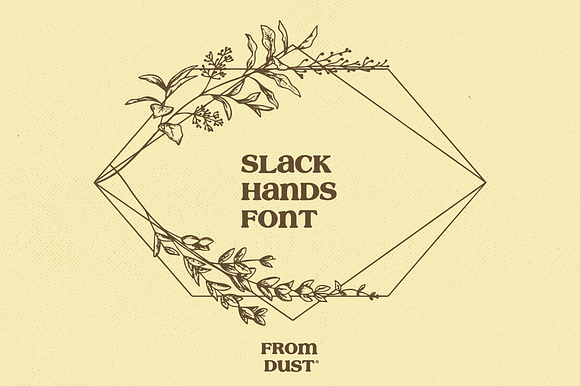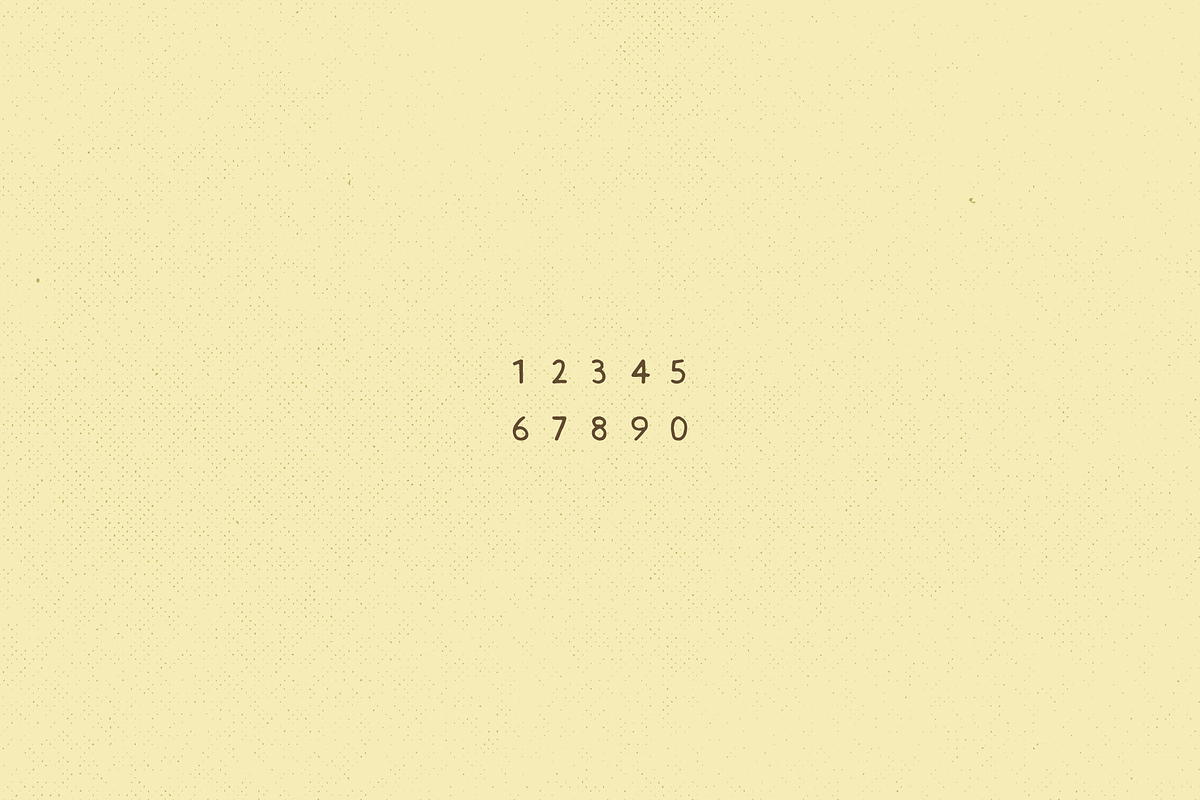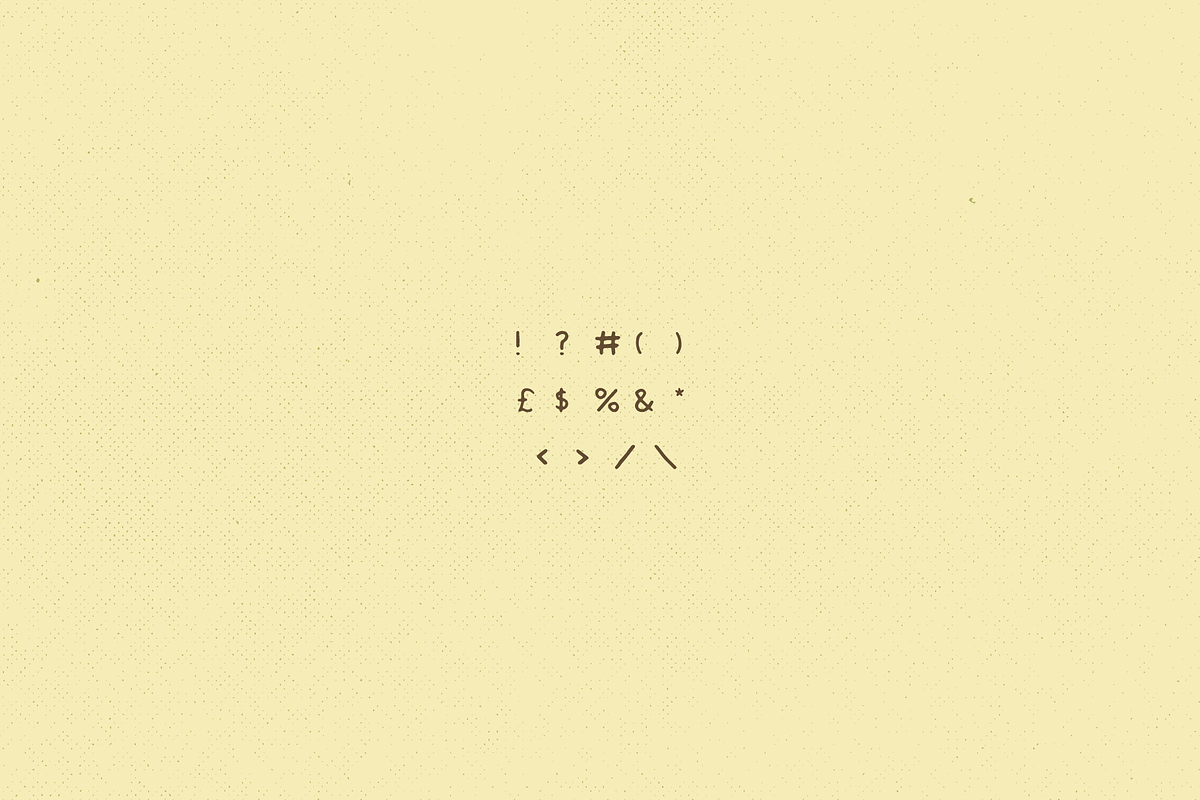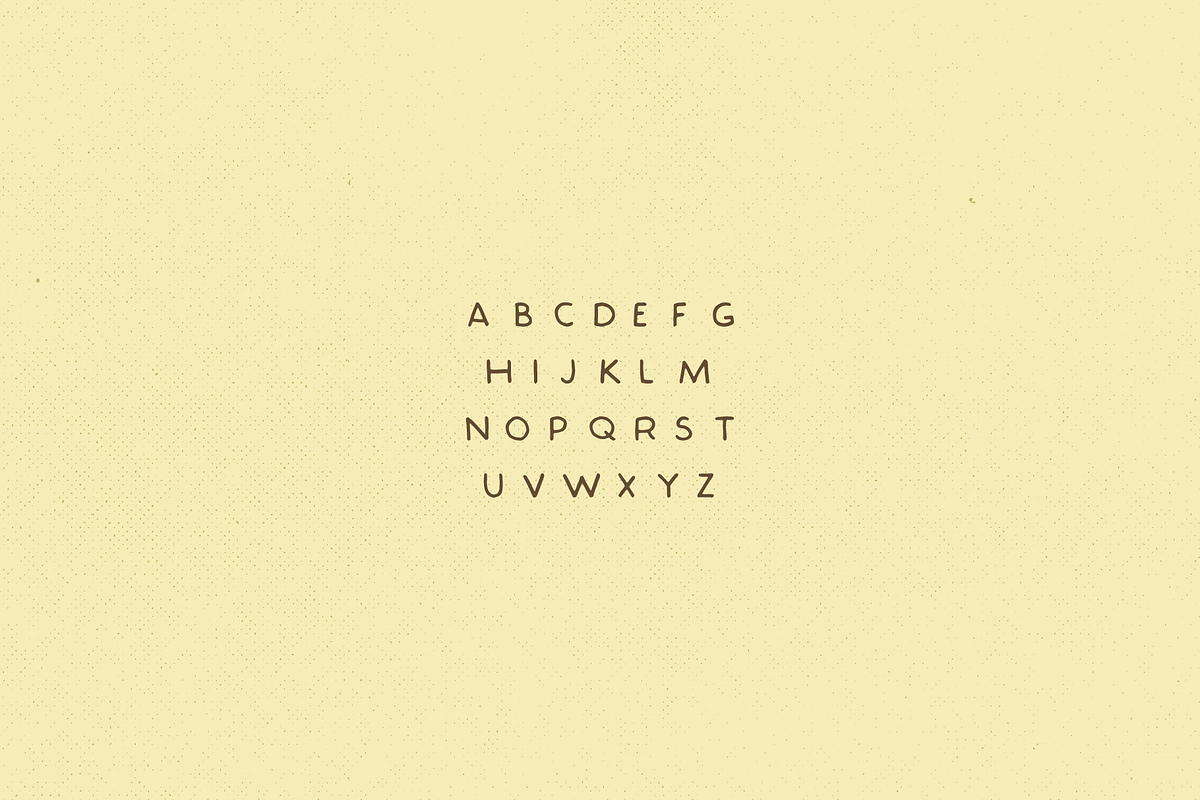
FDS - SLACK HANDS FONT
Introducing: Slack Hands. A cute, rustic handwritten font. Perfect for overlaying on social media images or product packaging.
FDS - SLACK HANDS FONT by From Dust Studio fits naturally into Branding, posters, packaging, typography.